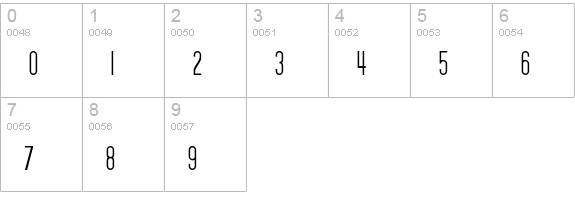
Movie Poster Font Details
Introducing the captivating Movie Poster font, a bold and eye-catching typeface that brings the essence of Hollywood glamour to your design projects. With its striking vintage aesthetic and elegant curves, this font is perfect for creating attention-grabbing movie posters, film titles, and promotional materials. Best of all, Movie Poster font is completely free to download at FontsMarket.com, making it accessible to designers of all levels. Add a touch of cinematic flair to your creations with this versatile and stylish font today. Let your imagination run wild with Movie Poster font and bring your designs to life on the big screen.